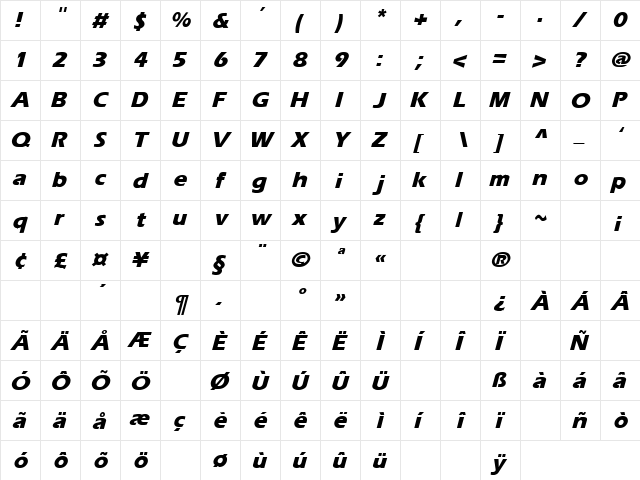
Presence 12 Italic Font Preview
Presence 12 Italic
Presence 12 Italic Font Details
Design Context for Presence 12 Typeface
Presence 12 takes a measured approach to typography — its balanced proportions and neutral character make it a reliable workhorse for both digital and print work. The slanted form adds forward momentum and visual energy.
Pro Tip: Try Presence 12 for annotation and caption copy alongside an upright companion — the contrast in angle creates a dynamic but ordered typographic system.